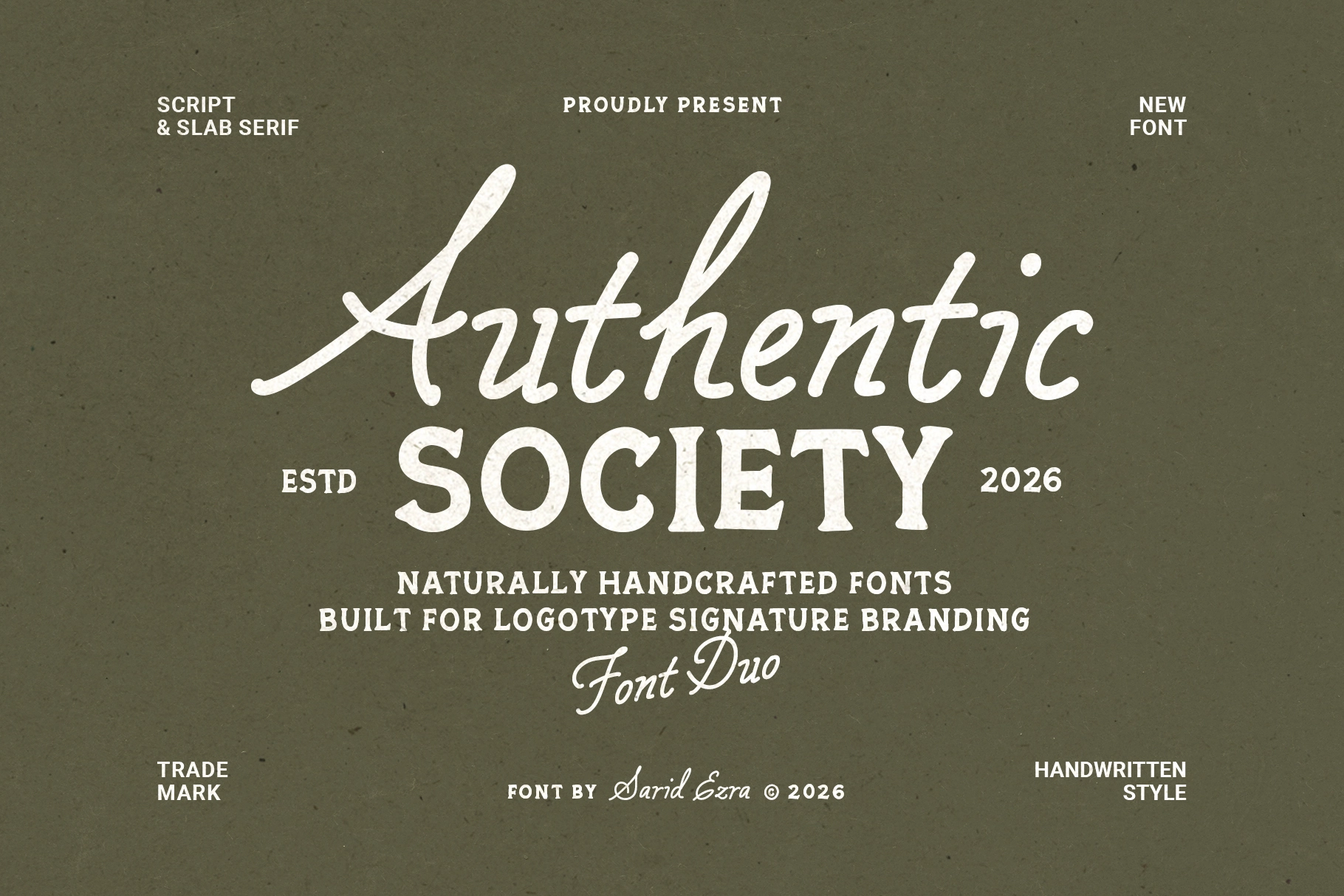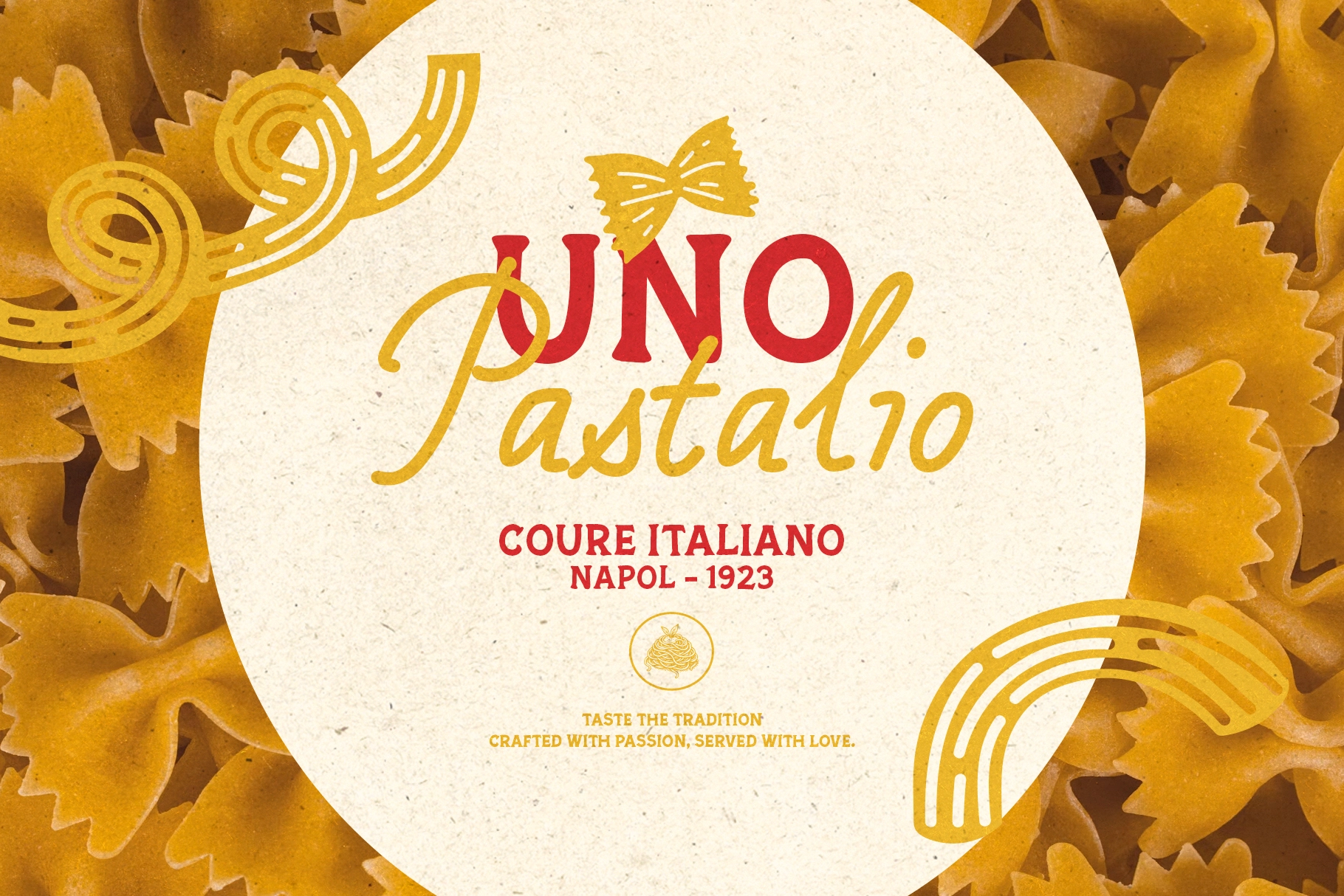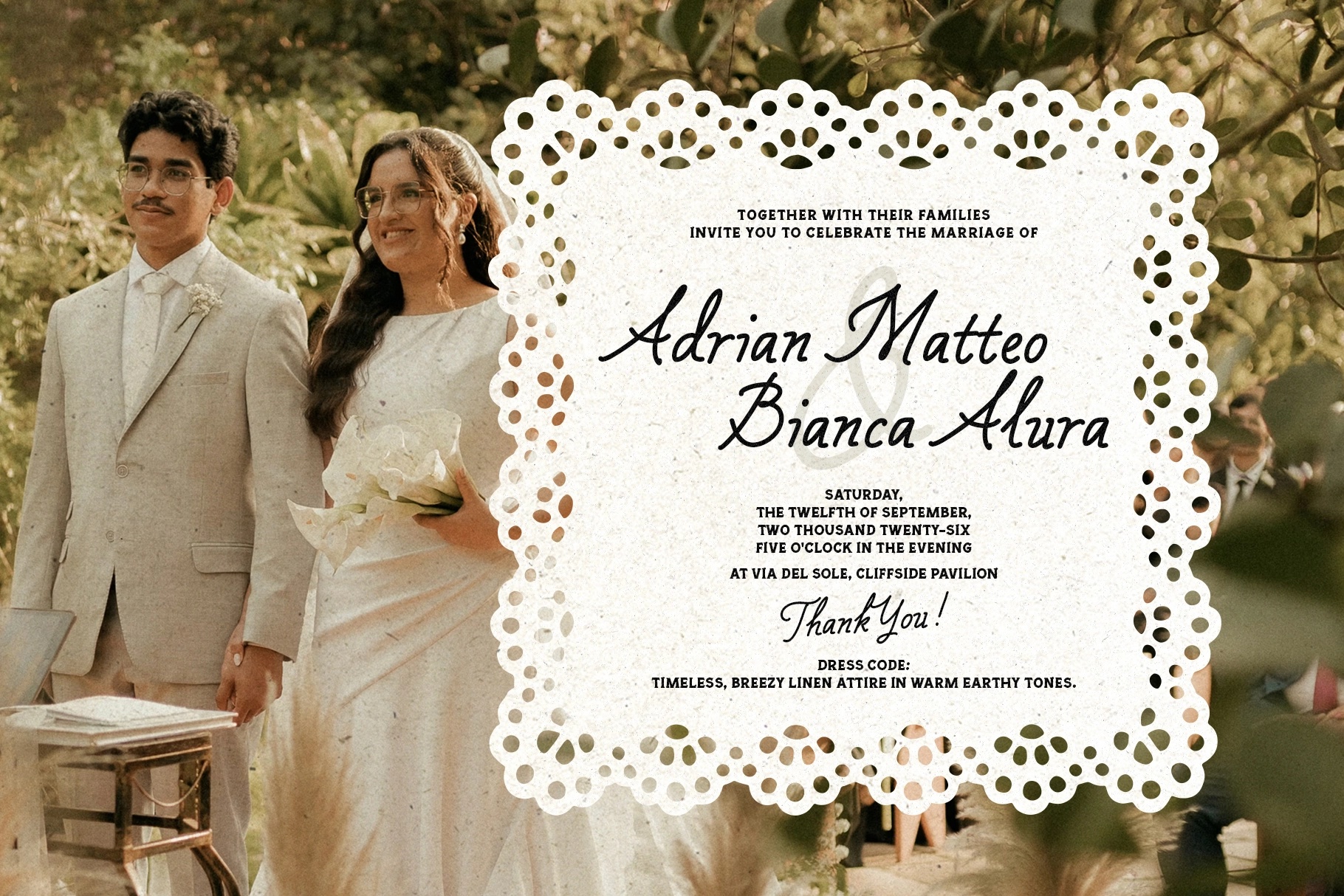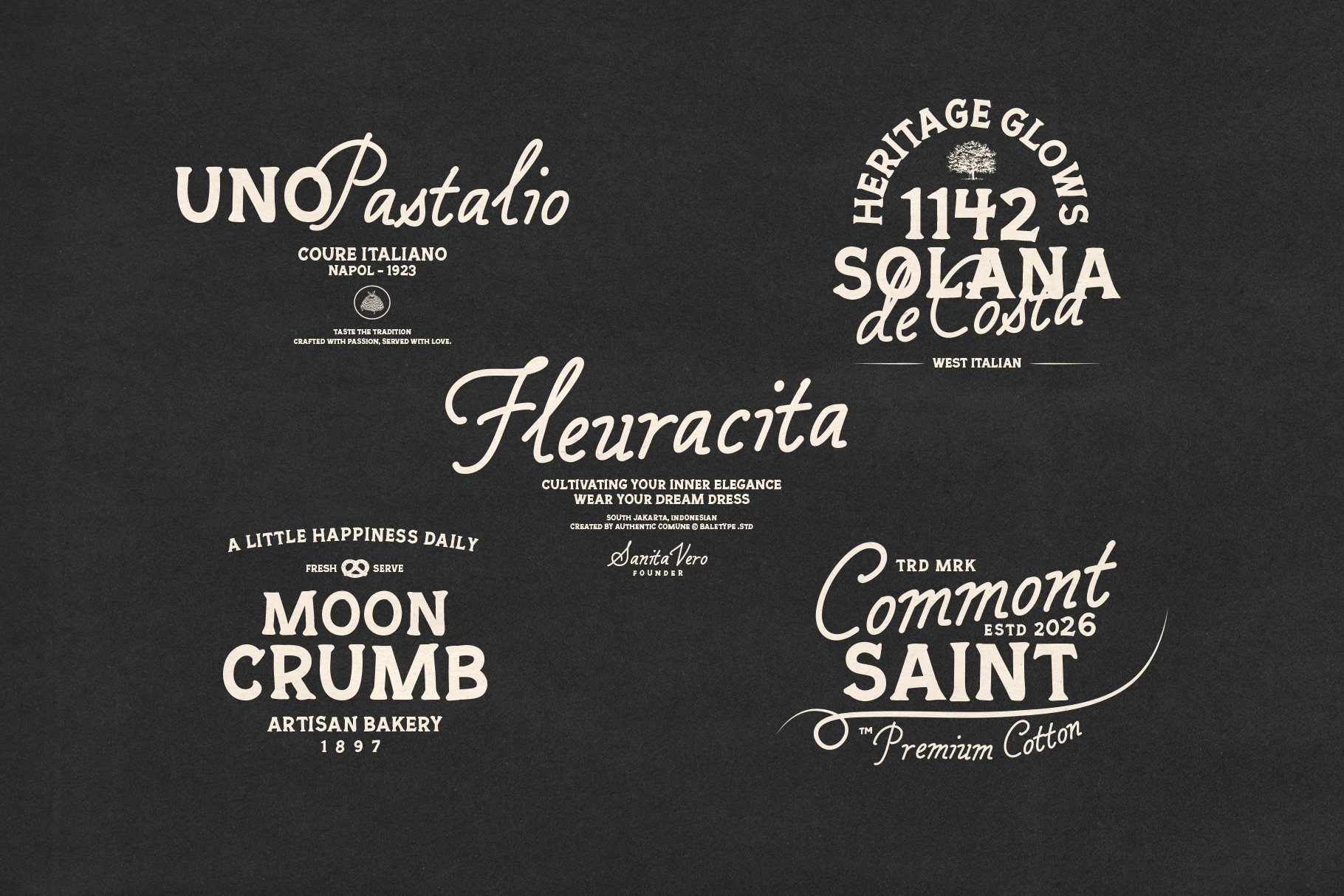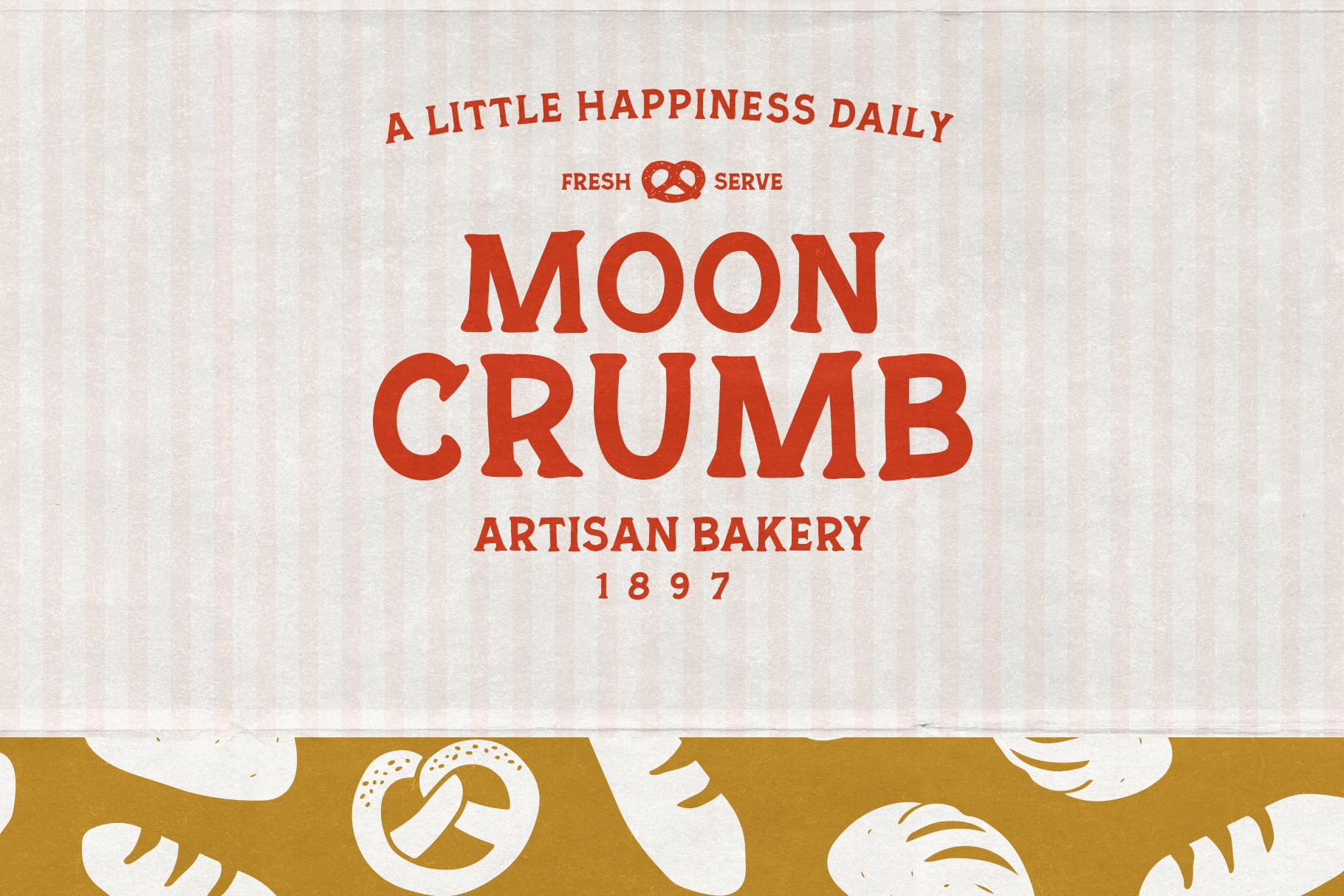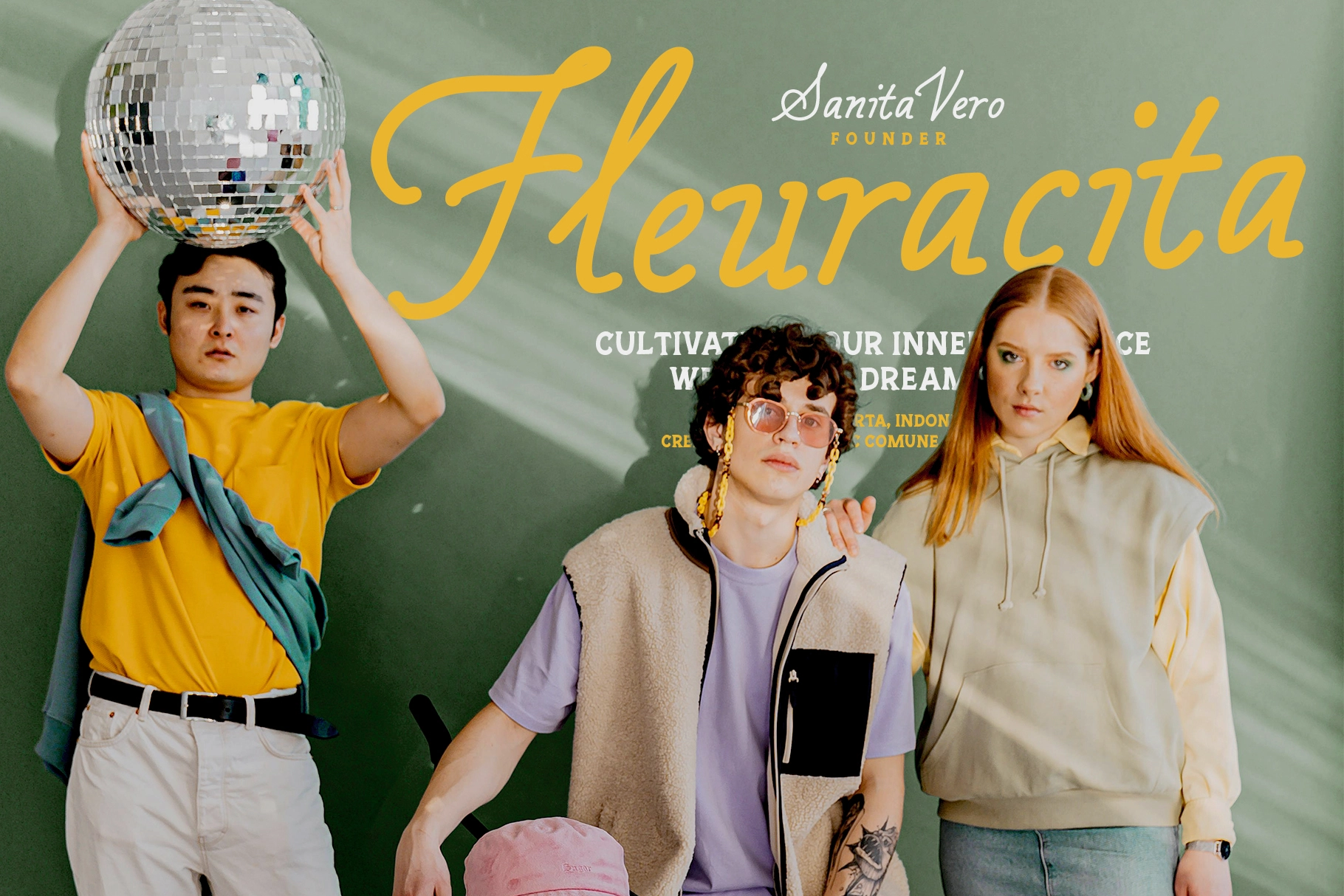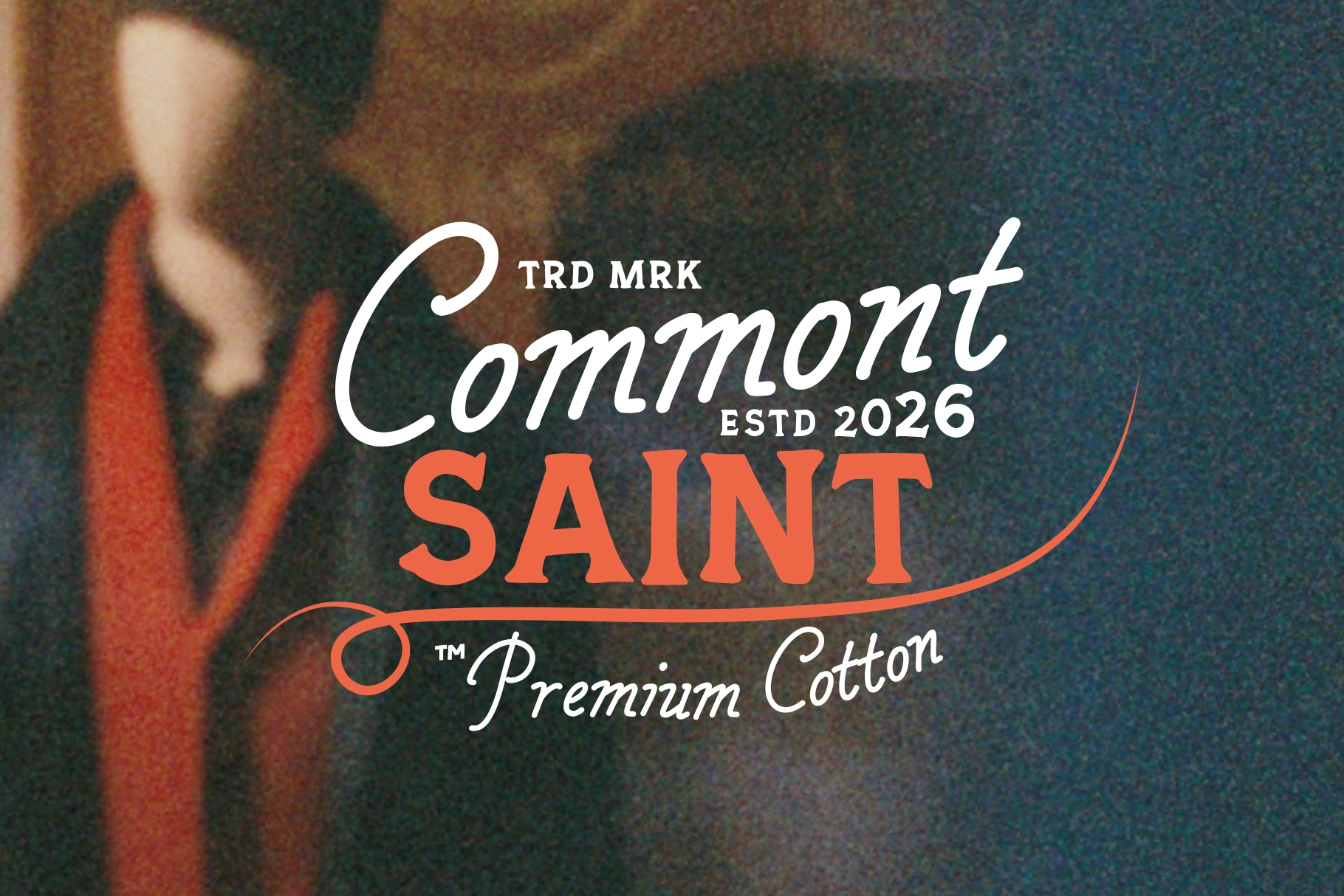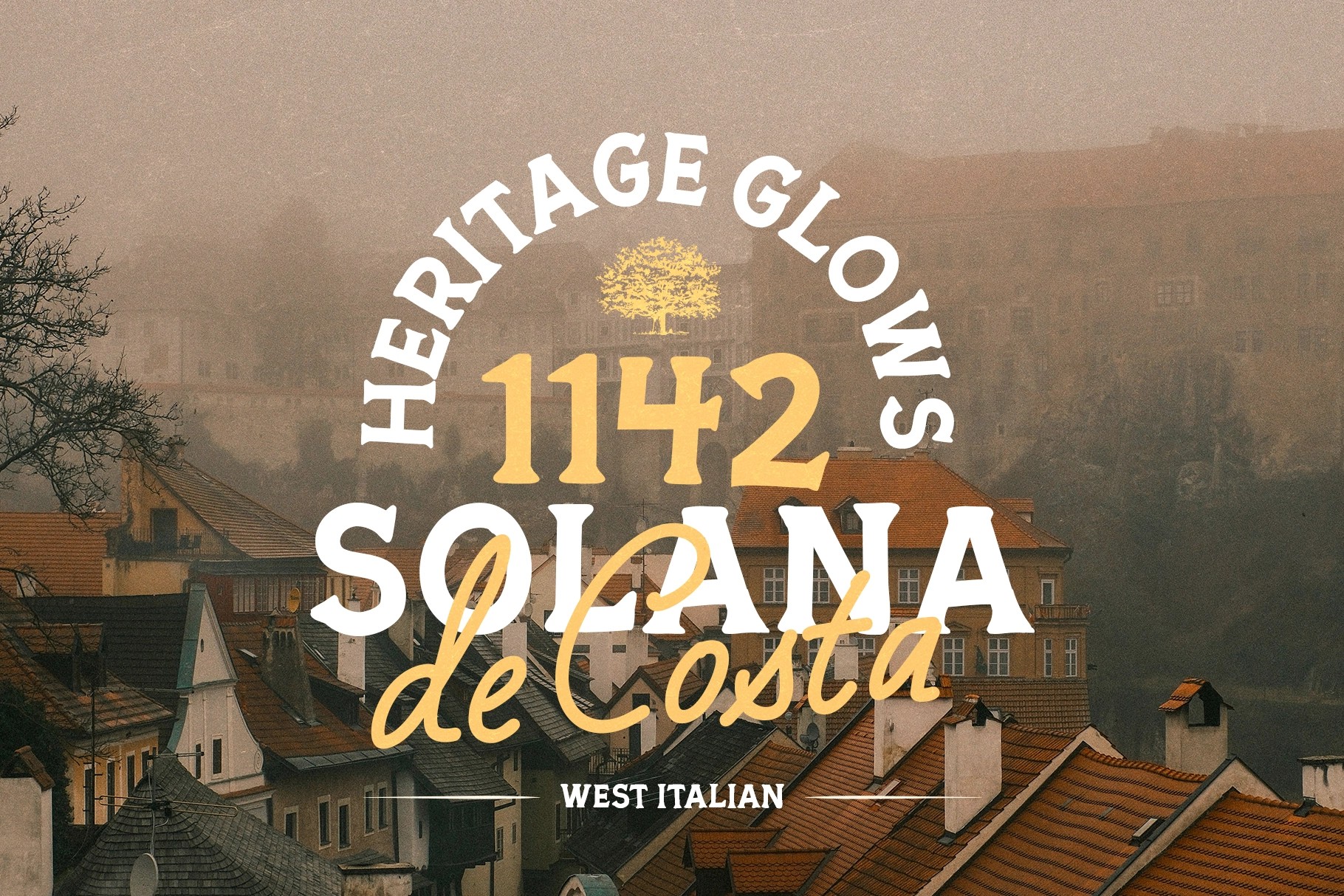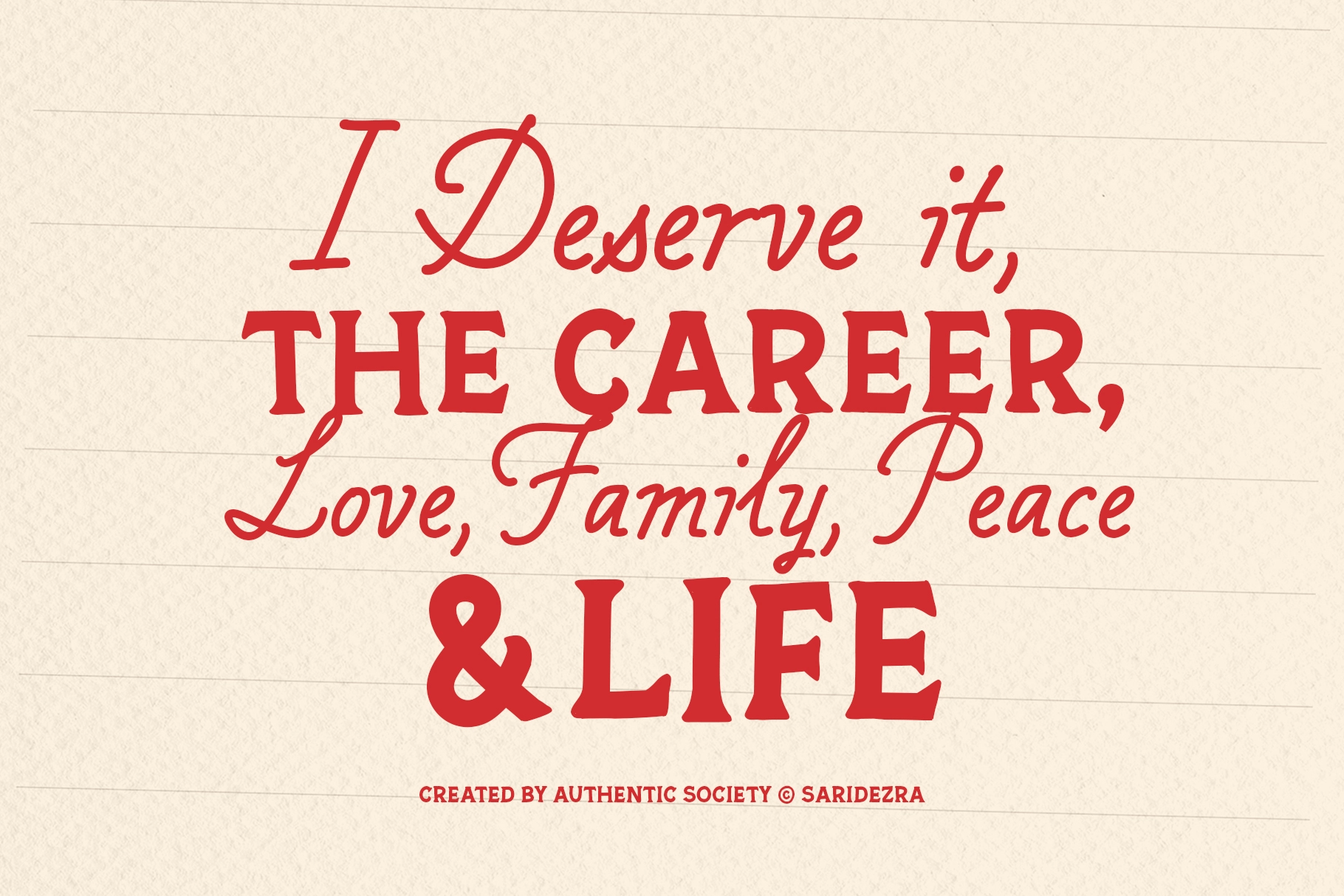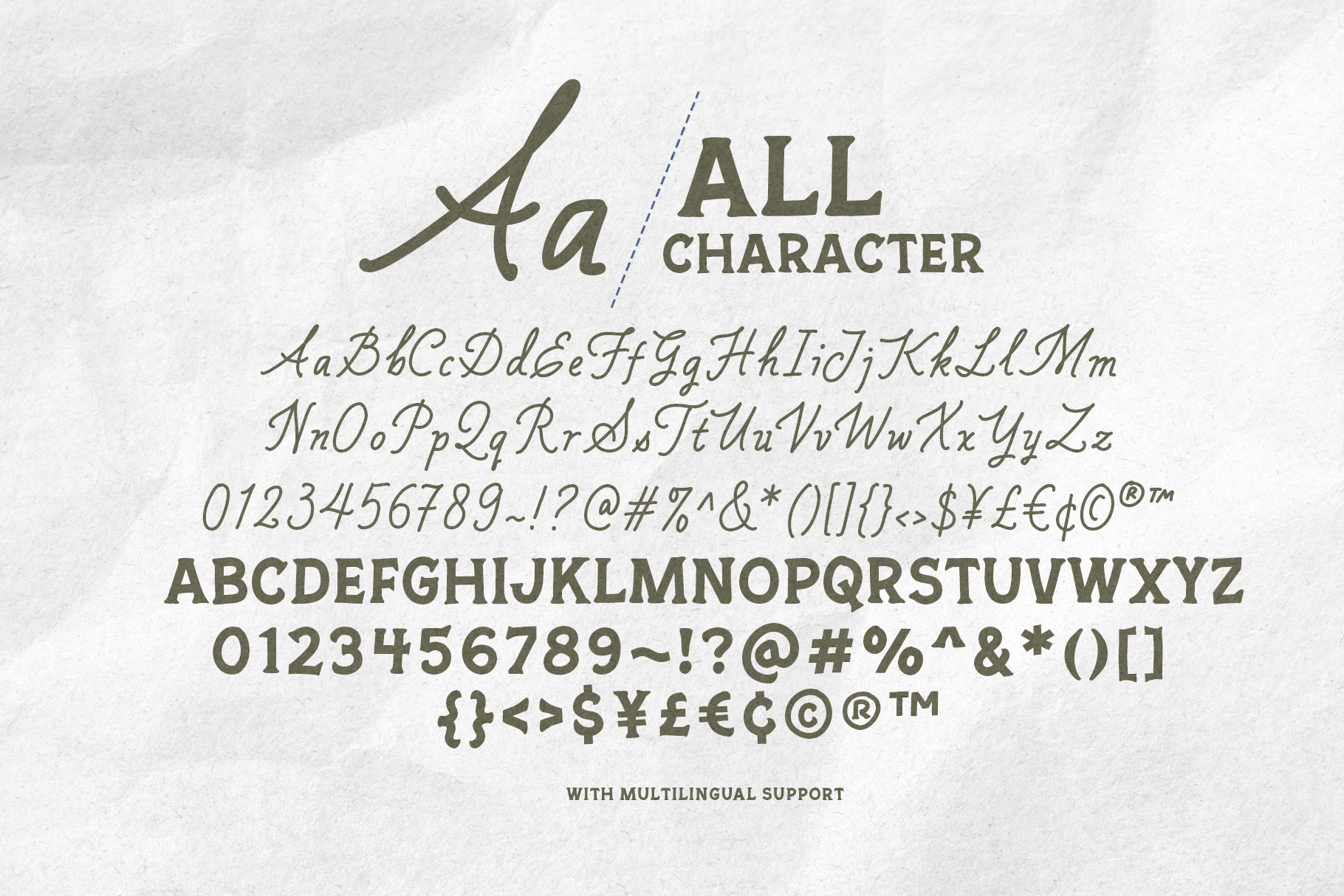
Authentic Society - Vintage Script&Slab Serif Duo
Authentic Society Script
Authentic Society Serif
Authentic Society is a vintage script font duo that pairs a monoline handwritten script with a compact slab serif — two hand-crafted styles that share the same ink-on-paper texture and sit naturally together in a single logotype composition. The script runs on a steady rightward lean with looping connectors and a relaxed pen rhythm that reads as personal but not precious; the slab serif brings rectangular bracketed serifs, even stroke weight, and the upright authority of an American heritage sign-painter's block lettering. Together they cover the full hierarchy of a vintage badge: script for the name, slab for the category line, or flipped depending on the layout.
- uppercase & lowercase (Script); uppercase only (Serif);
- numerals, punctuation & symbols;
- standard ligatures (Script);